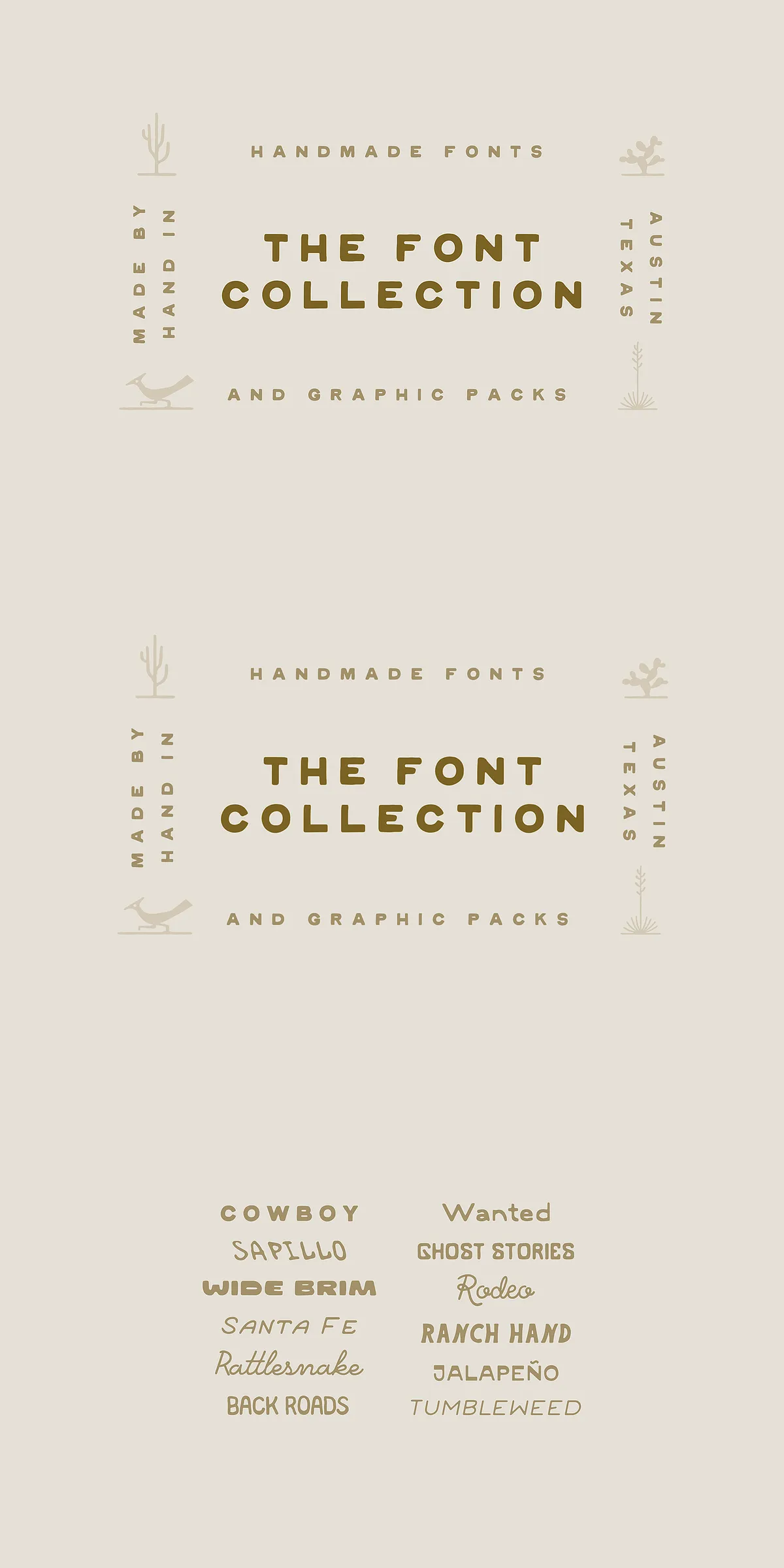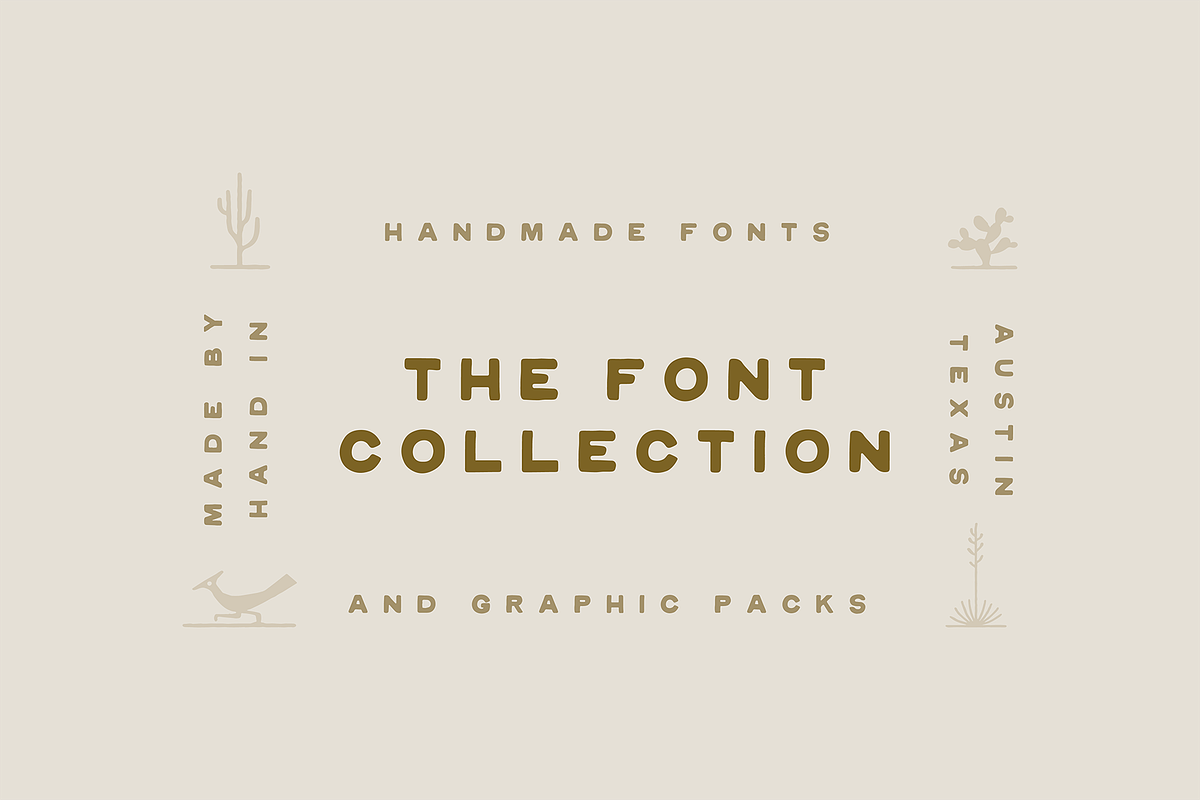
2022 was my year of rhythm, intention, and creative consistency — and I delivered. Twelve fonts. One per month. All signed, sealed, and delivered. Yes, I am an Oxford Comma person — because details matter, and every character in this collection was chosen with care. This isn’t just a font set. It’s a journey. A visual diary. A tribute to the quiet beauty of the American Southwest, the dusty glow of vintage packaging, and the quiet spark of a design that stops you in your tracks.
From Road Trips to Letterforms: Origins of a Creative Year
Desert Roots, Design Soul
Each of these 12 fonts was born from somewhere — a sun-bleached sign in Santa Fe, a hand-drawn sketch on a napkin in a mesa-side diner, the shadow of a cactus stretching across a sunbaked wall at golden hour. The southwestern U.S. — Arizona, New Mexico, Utah, Nevada — isn’t just a travel destination for me. It’s a design vocabulary. The open spaces, the weathered textures, the bold contrasts of light and shadow — they shaped every stroke, every curve.
Creative Sparks in Packaging & Posters
Some fonts emerged from the frustration of a logo that didn’t feel right. Others came from the joy of seeing a brand’s identity finally click into place during a poster redesign. These were not academic experiments. These were real-world challenges, real-world solutions, turned into living typefaces. If a brand needed warmth, I built a soft serif. If a design needed grit, I added a rough edge. Each font was a problem solved, a mood captured.
Designed for Minimalism, Built for Impact
Minimal with Meaning
Less is not empty. Less is deliberate. These fonts thrive in minimalist designs — clean lines, ample white space, a single statement. Use them for logos, product packaging, editorial layouts, or digital signage. Their clarity ensures your message lands fast, while their handcrafted feel keeps it human.
Vintage Meets Modern
The retro aesthetic isn’t a copy — it’s a memory. These fonts carry the spirit of 1950s road signs, 1970s desert boutiques, and 1980s indie posters. But they’re not pastiche. They’re reimagined. Modern kerning, responsive OpenType features, and web-first file formats ensure they work flawlessly in digital environments — from Webflow and WordPress to Figma and Adobe Creative Suite.
Perfect for: Retro, Nature-Inspired, and Design-Driven Projects
Southwestern & Desert Branding
For boutique hotels in Sedona, hiking gear brands in Albuquerque, or artisanal spice companies in Tucson — these fonts bring authenticity. They feel like they’ve been worn by time, not just designed for it. Use them for website headers, social media graphics, or business cards to signal connection to place, craft, and heritage.
Natural & Organic Design
For eco-friendly products, wellness brands, or organic skincare lines, these fonts radiate calm and integrity. The gentle curves, the soft weight transitions, the intentional spacing — they whisper “natural,” without saying it.
Poster & Art Prints
Each font was tested on large-format designs. They hold their power at 36 inches or 1080px. Use them for concert posters, book covers, fine art prints, or gallery exhibition signage. They command attention — not with loudness, but with presence.
- OpenType features: ligatures, stylistic alternates, small caps, discretionary ligatures, and contextual alternates
- Comprehensive glyph sets — Basic Latin, extended Latin, punctuation, currency symbols (€, £, ¥), and decorative flourishes
Join the Movement: Use with Purpose
More Than a Typeface — A Design Philosophy
These aren’t just fonts. They’re echoes of a year lived. Every letterform reflects a moment — a choice, a landscape, a creative breakthrough. When you use them, you’re not just typing. You’re storytelling. You’re connecting. You’re honoring the quiet magic between travel, memory, and design.
Use this 2022 collection to build brands that feel real. Design that feels human. Visuals that don’t shout — they settle in, like dust at sunset.